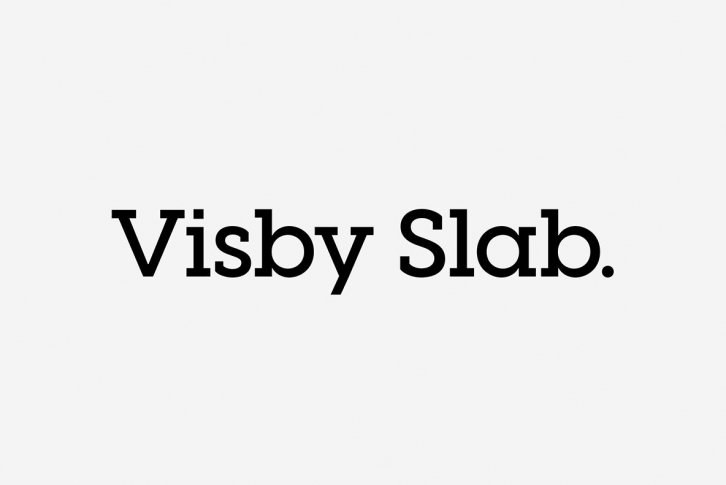
Visby Slab is a geometric slab serif built on the popular Visby font family. Fun to use and delightfully expressive, Visby Slab is vibrant and strong in all of its eight weights, and features true italics and wide language support. Excellent for headlines, captions, and just about everything in between.
- Eight weights and true italics
- Extensive Latin script support
- OpenType features